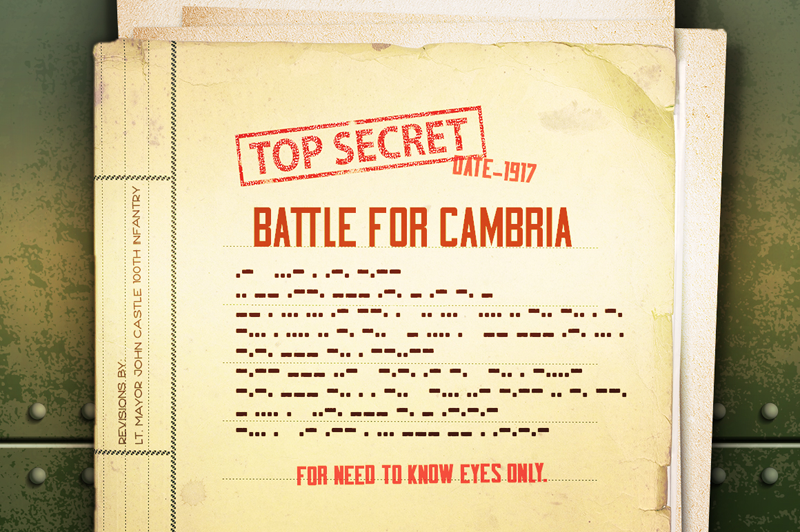
Bootcamp - Morse Code is a rough style part of a font family from a military inspired concept of World War 1. The font comes with 79 glyphs characters. I�ll appreciate your support if possible, Thanks! |